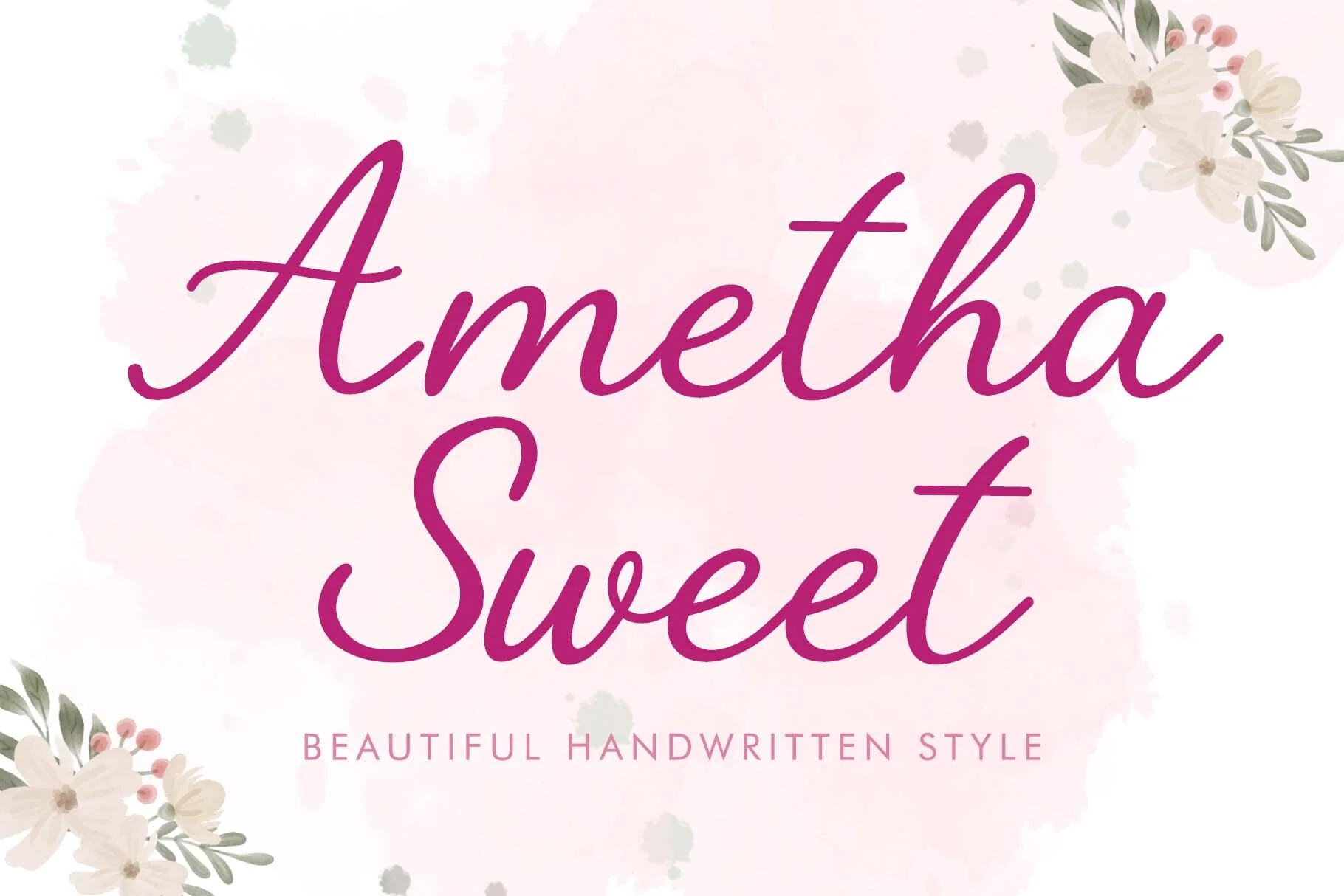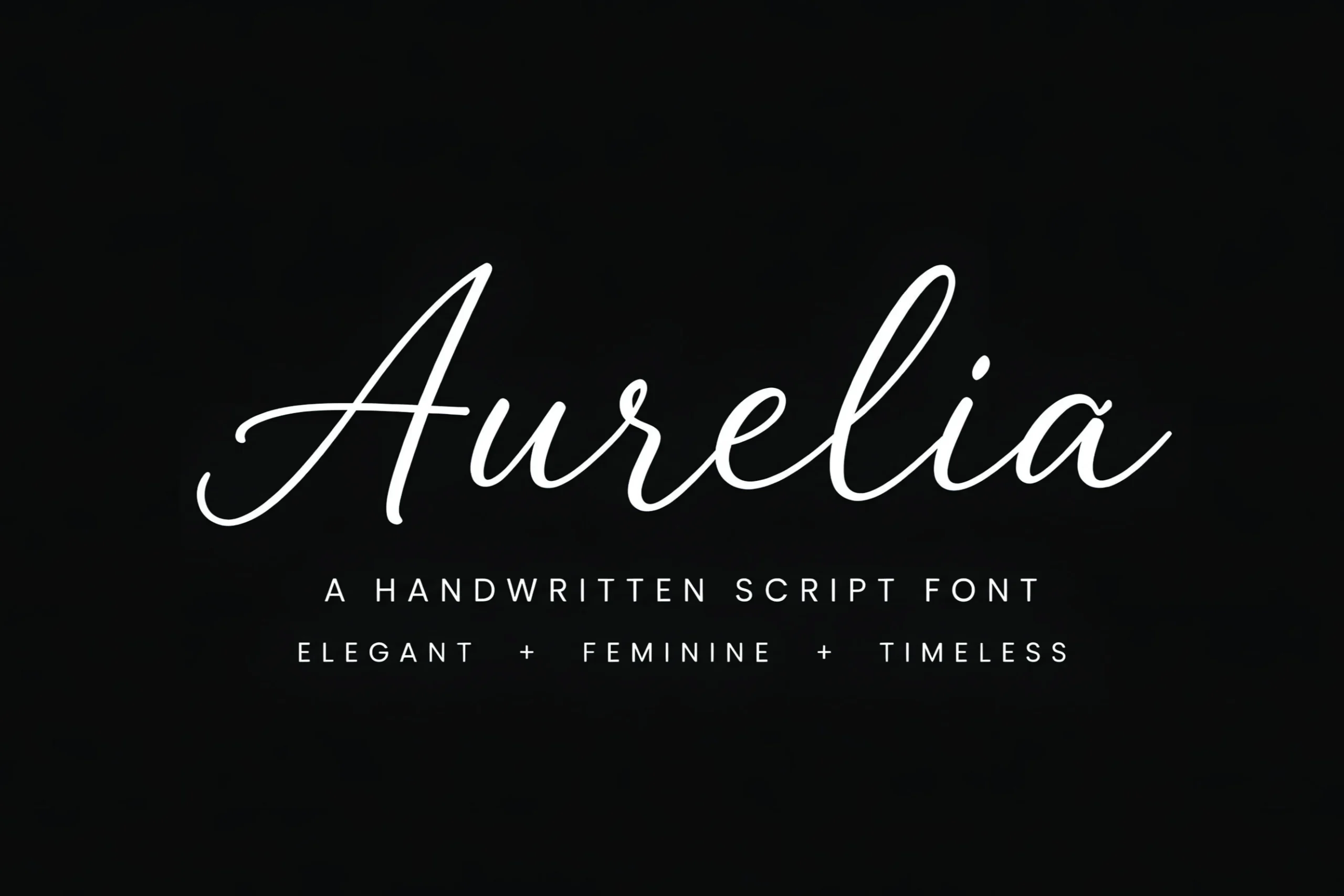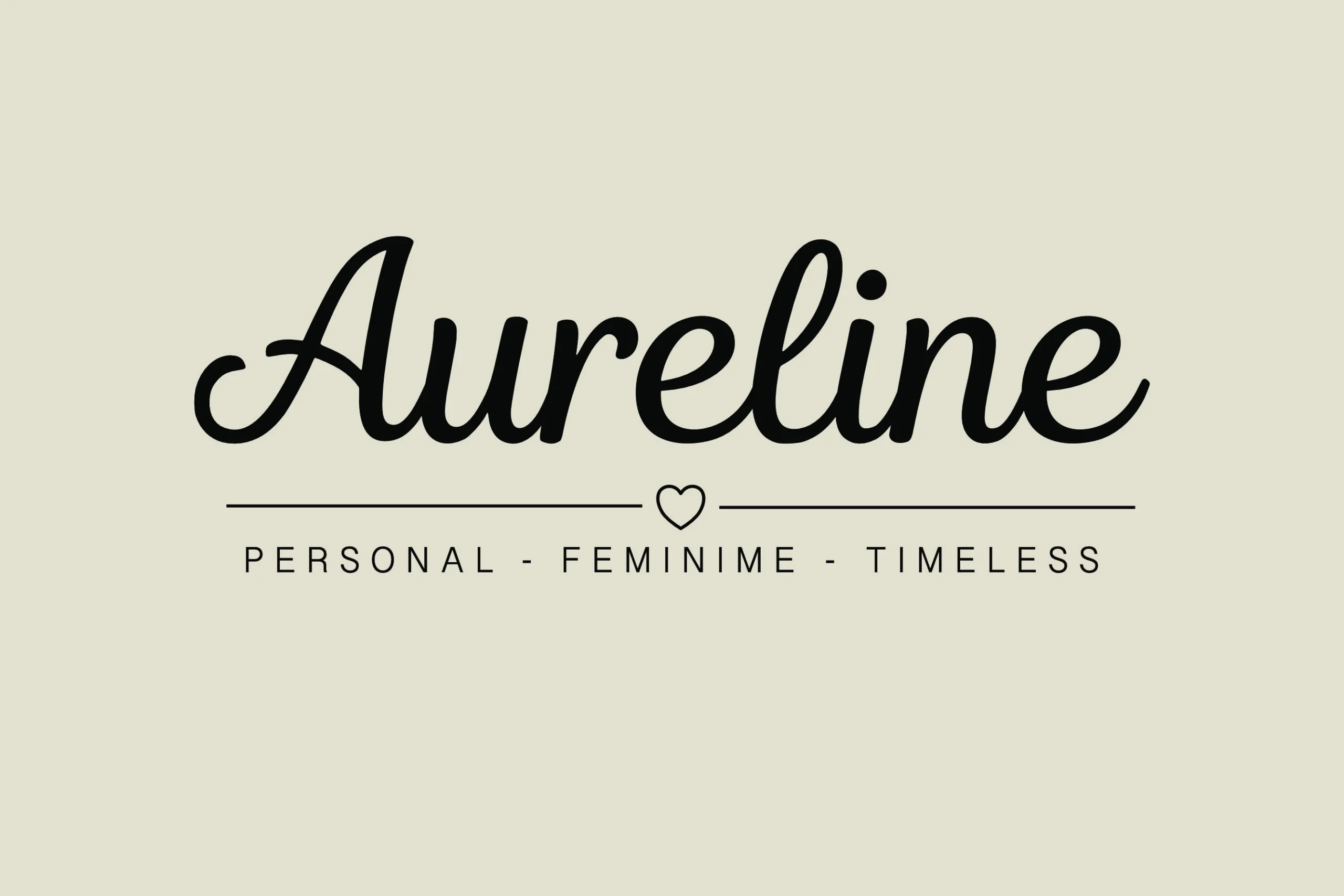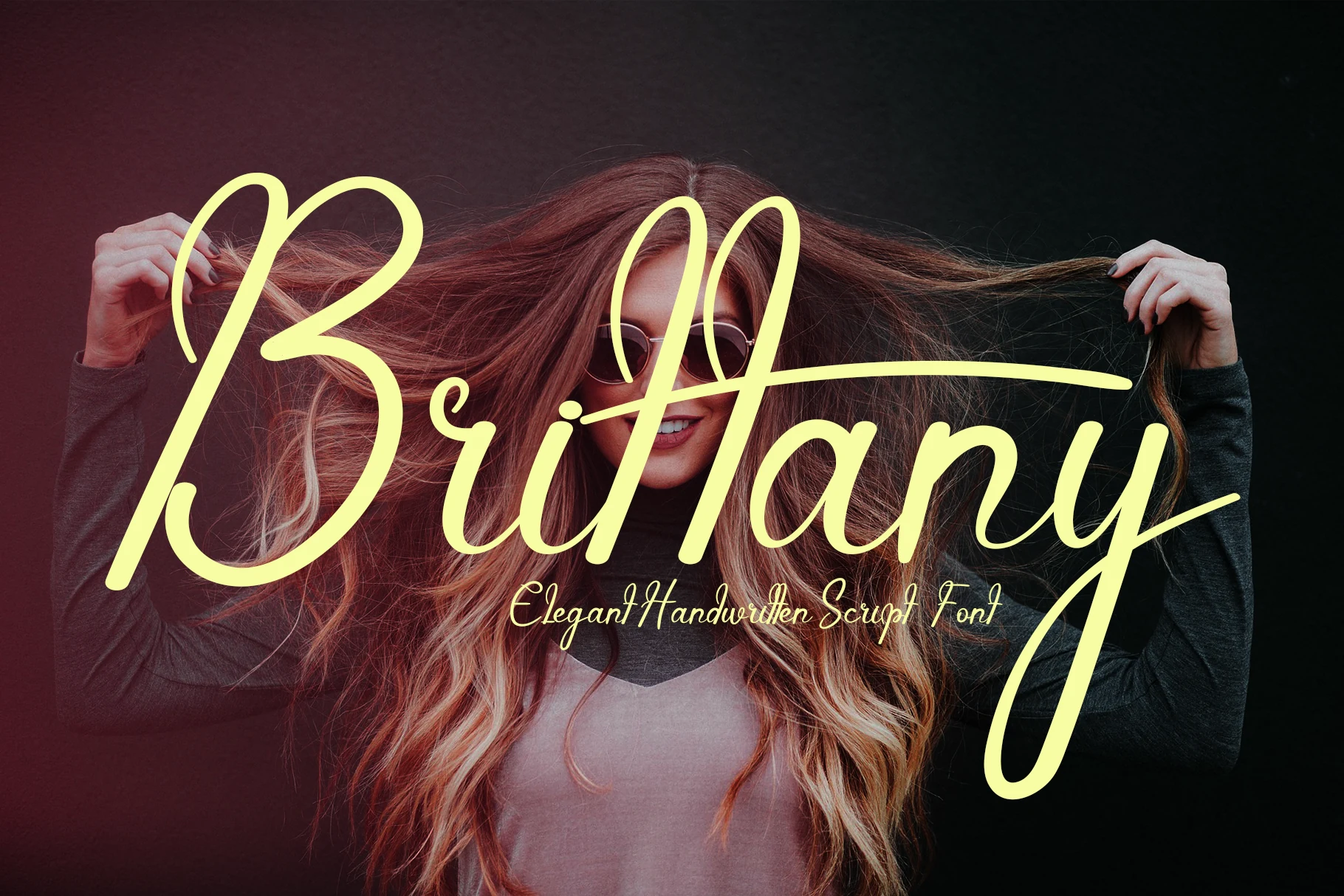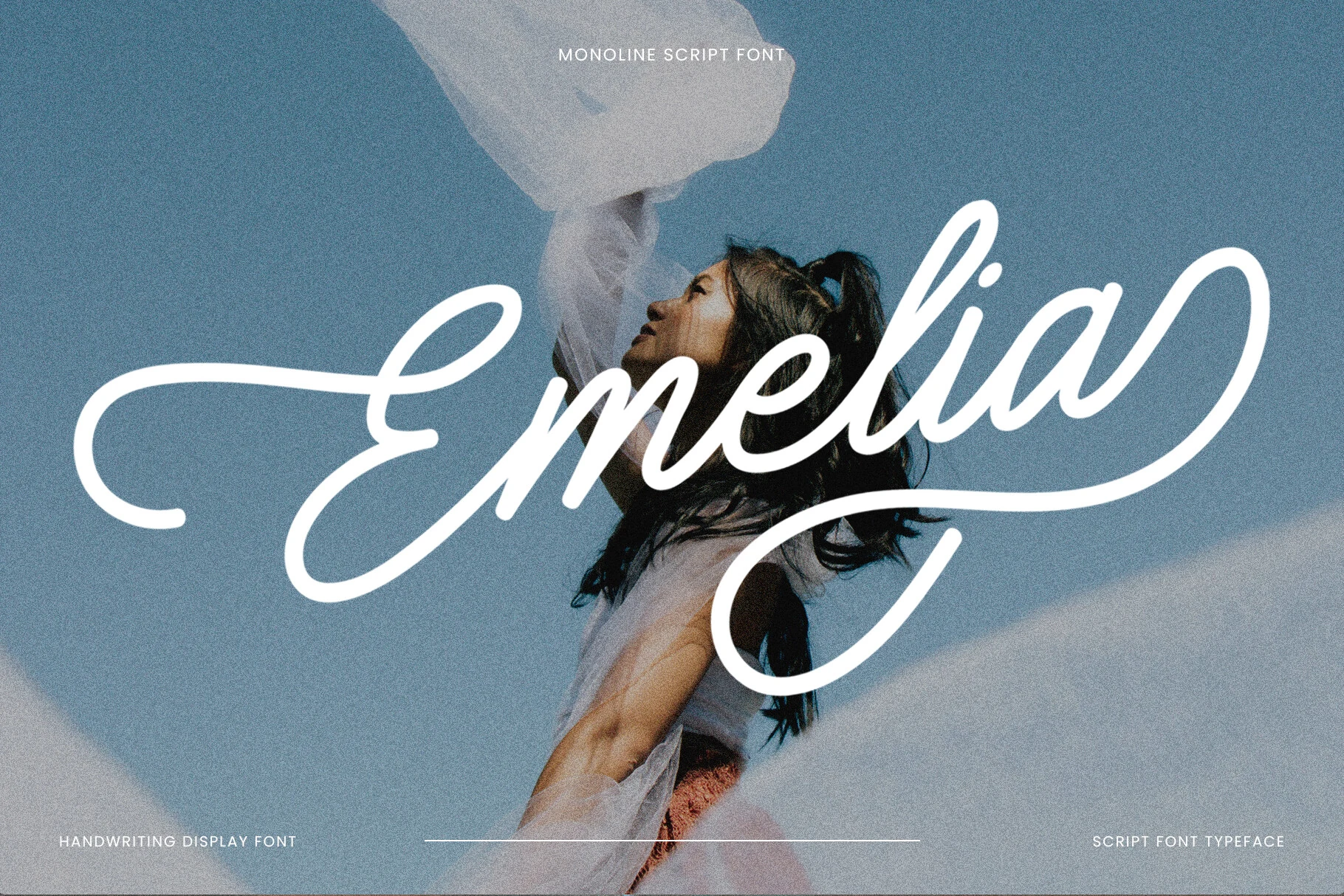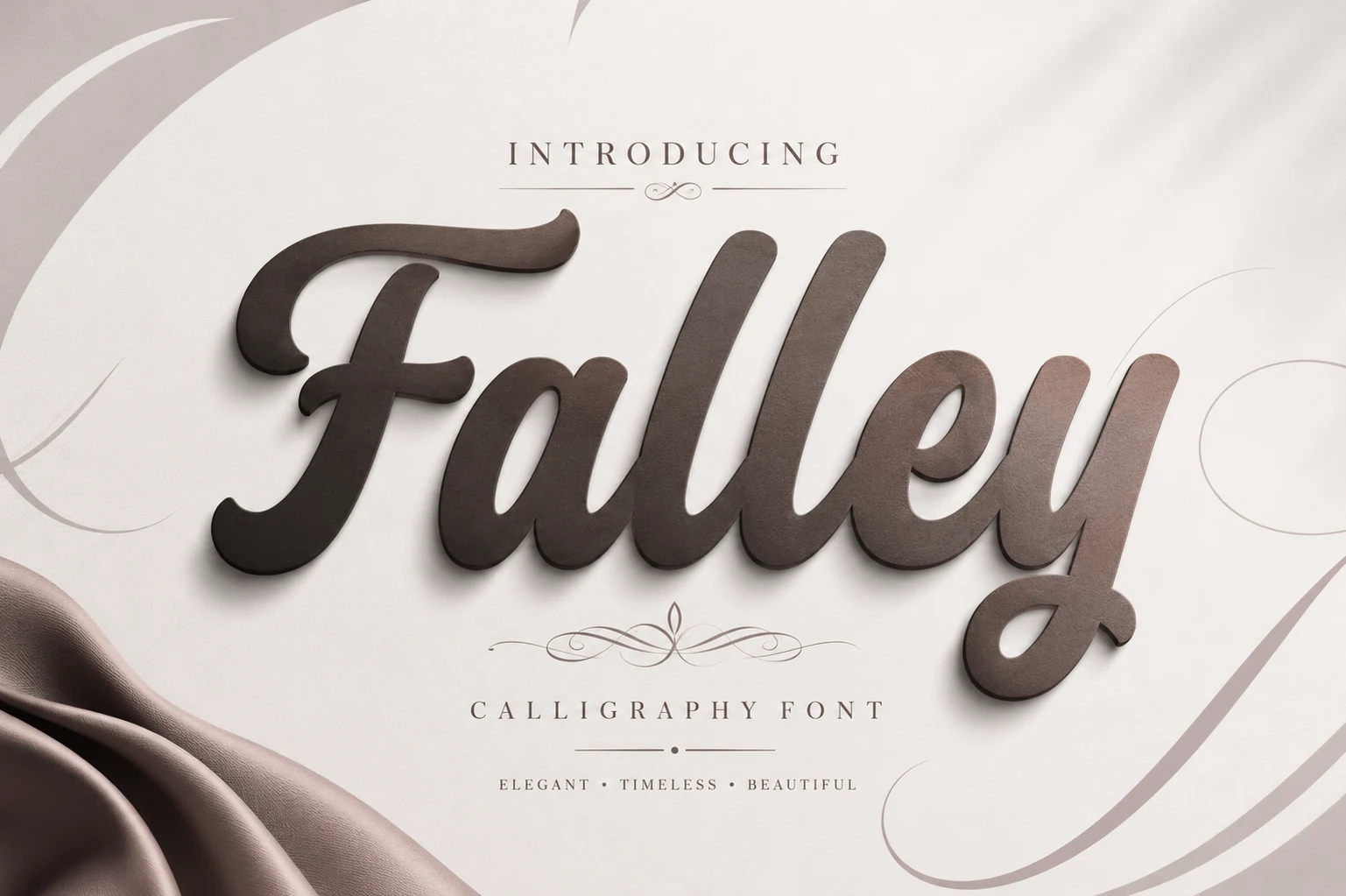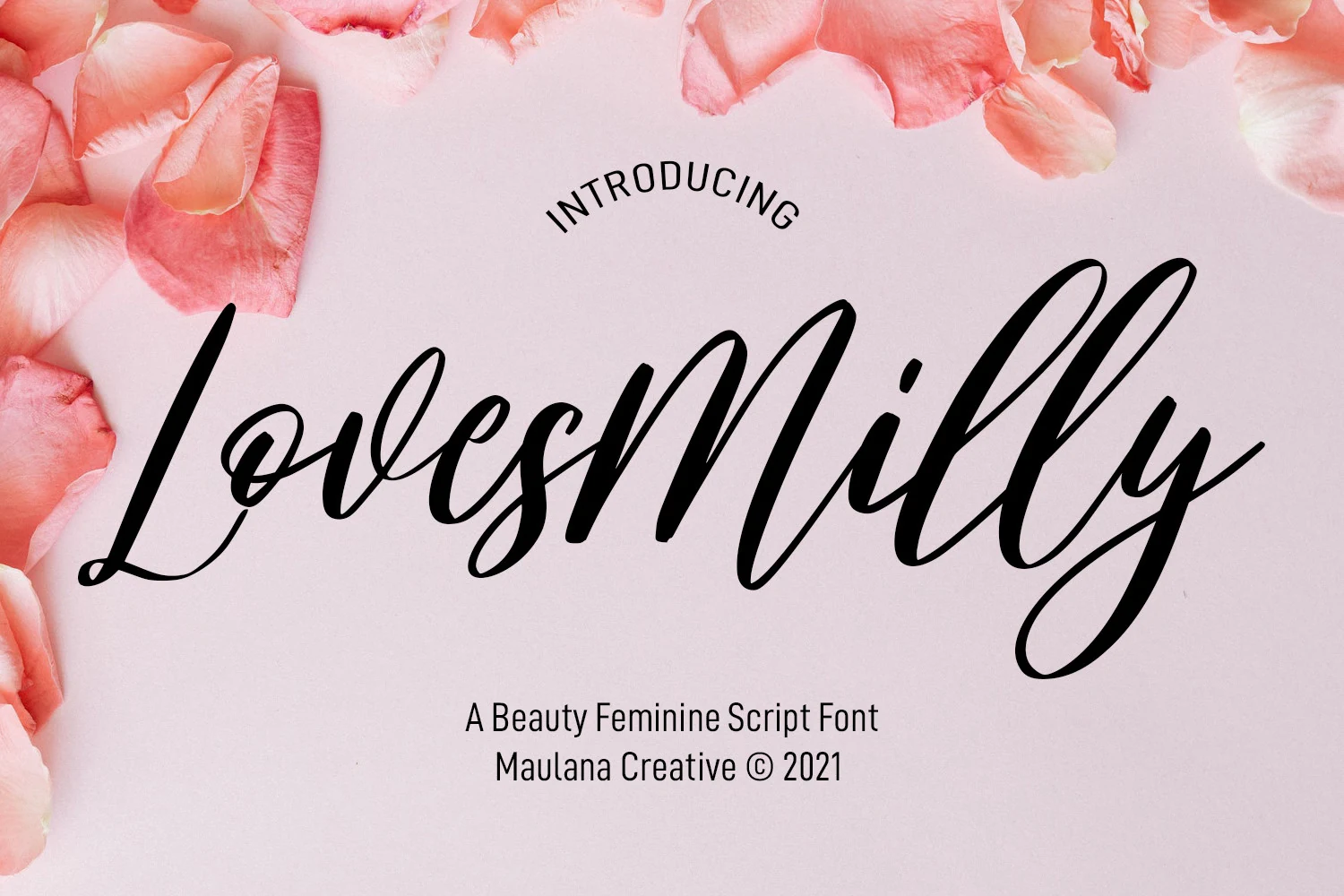
23 Best Feminine Script Fonts for Elegant Designs in 2026
Feminine script fonts are built for designers who need graceful lettering without losing clarity. This collection focuses on elegant scripts for logos, beauty branding, wedding invitations, packaging, editorial headers, and social graphics, with styles ranging from delicate signatures to bold calligraphy.
Elegant Calligraphy Feminine Script Fonts
These feminine script fonts use contrast, flourishes, and formal calligraphy details for luxury logos, invitations, editorial headers, and premium packaging.
Ambriana Font
Ambriana Font bold cream calligraphy script with looping swashes
Ambriana Font has a full-bodied calligraphic rhythm: heavy rounded downstrokes, narrow inner counters, and long looping capitals that pull the wordmark outward. The smooth joins and high contrast make it read as polished rather than casual, with enough ornamental movement to fit Feminine Script Fonts without becoming fragile.
Use it where the title is the main visual element. The alternate characters are useful for shaping entry and exit strokes around a logo, invitation name, or fashion header; keep surrounding text restrained and let Ambriana handle the hierarchy.
Dolcetto Script Font
Dolcetto Script Font white modern calligraphy with tall loops and thin swashes
Dolcetto Script Font has a modern calligraphy structure with tall looping strokes, slim hairline exits, and rounded downstrokes that keep the wordmark soft but controlled. Its open spacing and clean rhythm place it comfortably among Feminine Script Fonts, especially when a design needs elegance without dense ornament.
The thin swashes work best as part of a short title or name rather than a long sentence. Use strong background contrast, leave room around the capital D and final o, and pair it with spaced uppercase text to keep the layout refined.
Authemart Script Font
Authemart Script Font coral calligraphy script with high contrast strokes and long swashes
Authemart Script Font has a formal calligraphy build: high-contrast strokes, narrow upright letters, and long ornamental swashes on the opening A and final t. The smooth curves and vintage-style flourishes give Feminine Script Fonts a more classic, decorative direction rather than a loose signature feel.
Use it where the wordmark can sit wide and uncluttered. The extended underline and looping terminals help frame names or invitation titles, but they need generous side margins; pair it with restrained small caps so the script remains the main hierarchy.
Panda Font
Panda Font red elegant calligraphy script with high-contrast strokes and ornate swashes
Panda Font is an ornate calligraphy script with copper-style contrast, tapered hairlines, and sweeping loops that dominate the word shape. The large capital P, extended underline, and curled final a make it one of the more decorative Feminine Script Fonts for formal display work.
Use it where the lettering can be treated as the main artwork. Its character variations are most useful for shaping dramatic starts, endings, and underlines around a logo or invitation title; avoid tight crops and keep supporting type restrained so the swashes do not compete with other details.
Falley Font
Falley Font dark brown bold calligraphy lettering with rounded strokes and a looped descender
Falley Font has a bold calligraphic build with rounded strokes, soft pressure changes, and a sweeping capital that gives the wordmark a formal entrance. The connected letters are thick enough for readable titles, while the looped descender and curved terminals keep the style decorative without turning overly fragile.
Falley adds a heavier, more ceremonial option to Feminine Script Fonts, especially for wedding marks, boutique logos, and polished lifestyle branding. Use it for short headline words where the dense strokes can anchor the layout, then keep captions widely tracked and lighter in weight so the script does not compete with its own shadow and curves.
Light Signature Feminine Script Fonts
This group focuses on airy handwritten signatures with slim strokes, loose joins, and open spacing for personal branding, wedding names, and refined wordmarks.
Clementine Font
Clementine Font light handwritten script with long sweeping strokes
Clementine Font is a light handwritten script with an elongated entry stroke on the capital C, slim monoline curves, and a low sweeping underline. Its loose joins and slightly grainy edges give it an organic signature feel, placing it neatly within Feminine Script Fonts without making the lettering look overly formal.
The design works best when the word has horizontal space to stretch. Avoid tight containers around the capital and tall t, keep supporting text small and quiet, and use contrast rather than extra ornament so the long strokes stay readable.
Raissa Font
Raissa Font thin brown handwritten script with an oversized looped R and delicate swashes
Raissa Font is a fine handwritten script with an oversized looped R, airy spacing, and slender strokes that move in a loose signature rhythm. The double-s forms add ornamental movement without making the word heavy, giving Feminine Script Fonts a delicate, personal, and slightly luxurious character.
Its thin lines need clean contrast and quiet backgrounds, especially around the long left sweep and small connecting strokes. Use it for short names, marks, or wedding details where the open spacing can stay intact rather than being compressed into a crowded layout.
Aurelia Font
Aurelia Font white elegant handwritten script with thin curves and a sweeping capital A
Aurelia Font is a refined signature script with a wide sweeping entry on the capital A, slim oval ascenders, and smooth connections that keep the word moving in one continuous line. Its thin strokes and controlled spacing give Feminine Script Fonts a clean, premium look rather than a heavily ornamental one.
The letterforms depend on contrast and open space, so they work best in short names, marks, or editorial headers. Keep nearby typography simple and widely tracked; the script already carries the motion, while the supporting text should stabilize the composition.
Flaura Font
Flaura Font black monoline handwritten script with large looping swashes
Flaura Font is a slender monoline script with a wide looping F, loose handwritten joins, and oversized swashes that wrap above and below the word. Its light pressure and open rhythm give Feminine Script Fonts a personal, airy look rather than a dense calligraphy finish.
The long flourishes need generous margins, especially on the right where the terminal stroke becomes part of the composition. Use it for short names or signature-style marks, and keep nearby text compact and quiet so the loops stay intentional instead of crowded.
Brittany Font
Brittany Font pale yellow handwritten script with tall loops and long flowing swashes
Brittany Font uses a light handwritten script with tall looped capitals, long horizontal swashes, and a narrow connected rhythm. The strokes stay smooth and even, so the lettering feels graceful without heavy contrast; it is strongest as a single name, logo wordmark, or short romantic title.
For Feminine Script Fonts, Brittany fits polished branding, wedding stationery, and personal identity marks that need movement more than ornament. Give the opening capital and extended crossbar room to travel, then balance it with small restrained copy beneath so the script remains the clear headline.
Melastory Script Font
Melastory Script Font black signature script lettering with tall strokes and compact connected letters
Melastory Script Font has the quick, fashion-sketch rhythm of a signature: tall vertical strokes, narrow connected lowercase, and a sharp ending tail that gives the wordmark forward motion. The line is slim but not fragile, with enough contrast in the bends to keep the lettering visible on clean branding layouts.
For Feminine Script Fonts, Melastory leans stylish and carefree rather than ornate. Use it where a name or short phrase needs to feel personal without becoming overly decorative; loose margins around the tall ascenders and a restrained sans subtitle will keep the signature from crowding the rest of the design.
Romantic & Flowing Feminine Script Fonts
These scripts balance graceful loops, soft rhythm, and decorative swashes for romantic titles, beauty branding, stationery, and polished lifestyle layouts.
Amellia Font
Amellia Font elegant black handwritten script with smooth loops and high contrast strokes
Amellia Font has a clean handwritten flow with a dramatic capital A, rounded looped ascenders, and controlled thick-to-thin contrast. Its smooth connections keep the word shape polished, while the long exit stroke gives Feminine Script Fonts a graceful signature finish without adding heavy decoration.
The balanced letterforms make it easier to build romantic titles that still feel readable. Use the graceful ligatures for names, logo marks, or invitation headers, then keep tracking loose in nearby uppercase text so the script remains the visual anchor.
Orchidia Font
Orchidia Font white handwritten script with a large looping capital O and smooth rounded strokes
Orchidia Font is a smooth handwritten script with a large double-loop capital O, tall rounded ascenders, and soft monoline pressure that stays readable across the word. Its upright rhythm and clean joins give Feminine Script Fonts a gentle romantic tone without making the letters overly ornate.
The wide O and long final stroke need room at both ends, so it works strongest as a short logo, product label, or wedding title. Keep supporting typography narrow or lightly tracked, and use high contrast to protect the slim internal gaps.
Lovesmilly Feminine Font
Lovesmilly Feminine Font black flowing script with tall loops and high contrast strokes
Lovesmilly Feminine Font leans into a tall, expressive script: extended vertical strokes, tight connecting joins, and large looped descenders give the wordmark a romantic sweep. The contrast between slim hairlines and heavier curves gives Feminine Script Fonts a sharp, fashion-led presence rather than a casual handwritten softness.
Keep it in short names, labels, or hero titles where the long L and final y can extend cleanly. The letterforms need generous horizontal space and strong background contrast; crowded layouts will flatten the delicate curves and make the middle letters harder to read.
Agatha Font
Agatha Font orange delicate script lettering with long swashes and thin loops
Agatha Font is a delicate script with thin connected letters, tall looped strokes, and oversized swashes that stretch far beyond the word. Its romantic character comes from the contrast between compact lowercase forms and airy flourishes, so it works best as a short name, invitation heading, or decorative logo mark.
Within Feminine Script Fonts, Agatha is ornamental but still light, not bold or casual. Keep the main word isolated with generous margins, especially above and below the long loops; a small serif or widely tracked sans caption can sit beneath it without fighting the thin stroke rhythm.
Heroic Trouble Script Font
Heroic Trouble Script Font pink handwritten script lettering with flowing loops and brush-like strokes
Heroic Trouble Script Font has a loose handwritten flow with tall looped ascenders, quick angled joins, and thick brush-like turns that keep the words moving across the line. The capitals are decorative without becoming overly formal, so the font reads best in short names, titles, and expressive phrases.
Within Feminine Script Fonts, Heroic Trouble feels more lively and editorial than soft or minimal. Its alternates and ligatures can help vary repeated joins in wedding cards, fashion layouts, and magazine-style headings; keep the surrounding typography narrow and quiet so the sweeping strokes stay in control of the hierarchy.
Emelia Font
Emelia Font white monoline script lettering with smooth loops and flowing swashes
Emelia Font uses a clean monoline script with long entry and exit swashes, rounded loops, and a steady handwritten rhythm. The lettering feels broad and confident rather than fragile, so it works best as a display name, logo wordmark, or short phrase where the sweeping capitals can shape the composition.
For Feminine Script Fonts, Emelia sits on the polished lifestyle side: soft enough for wedding stationery and personal branding, but controlled enough for packaging or photography logos. Keep spacing loose around the first and last letters, and pair it with a small, widely tracked sans caption so the script keeps the title hierarchy; OTF and TTF files with multilingual support help maintain that style across broader text sets.
Bold & Rounded Feminine Script Fonts
These feminine script fonts use fuller strokes, rounded curves, and stronger display weight for packaging, social graphics, labels, and readable brand titles.
Vionettay Font
Vionettay Font bold black script with thick curves and a sweeping descender
Vionettay Font uses a bold handwritten structure with thick slanted strokes, rounded joins, and a large looping capital V that gives the wordmark immediate display weight. The contrast is smooth rather than sharp, so it fits Feminine Script Fonts with a stronger, more editorial tone.
Its compact connections create a dense rhythm, which works well for logos and short brand names but needs generous side margins around the first and last letters. Pair it with widely spaced small caps or a quiet serif to keep the title hierarchy clean.
Aureline Font
Aureline Font bold monoline script with smooth curves and rounded loops
Aureline Font has a smooth monoline script build with rounded bowls, a curled entry stroke on the capital A, and a steady connected baseline. The weight is fuller than many signature styles, giving Feminine Script Fonts a cleaner, more readable option for polished brand names and personal marks.
Its balanced posture makes short words feel stable rather than overly delicate. Keep letter spacing natural inside the script, add contrast with widely spaced supporting caps, and leave room at both ends so the opening curl and final stroke do not feel clipped.
Ametha Sweet Font
Ametha Sweet Font magenta handwritten script with rounded curves and smooth connected strokes
Ametha Sweet Font uses a rounded handwritten script style with smooth connected strokes, a tall sweeping A, and soft looped forms that keep the lettering approachable. The weight is clean and even, giving Feminine Script Fonts a brighter, more casual direction than formal calligraphy.
Its wide curves and extended strokes work best in short titles where the letters can stretch without crowding. Use clear contrast and modest supporting type; the script already carries enough movement, so extra flourishes would make the layout feel busy.
Belita Font
Belita Font thick gray script with rounded strokes and a looping capital B
Belita Font has a thick, rounded script structure with a bold looping B, soft terminals, and compact joins that make the word feel stable rather than fragile. Its snappy rhythm gives Feminine Script Fonts a more confident, brand-ready tone while keeping the curves smooth and approachable.
The heavier weight gives it better visibility for packaging, labels, and social posts, especially when used as a short title. Keep supporting text lighter and more spaced out, since Belita already carries strong visual density through its rounded strokes and close connections.
Andelina Font
Andelina Font yellow casual brush handwriting with rounded upright letters
Andelina Font reads as casual brush handwriting rather than a delicate looped script. Its upright forms, rounded bowls, blunt terminals, and slightly irregular stroke edges give the lettering a simple, friendly shape that stays readable even when used across a wider headline.
In a Feminine Script Fonts roundup, Andelina works best for layouts that need softness without ornate swashes: invitations, small brand marks, and social graphics with a handmade tone. Let the thick letter shapes carry the title, then use tighter secondary text beneath it so the loose spacing and tall vertical rhythm do not feel crowded.
Galery Handwriting Font
Galery Handwriting Font bold rounded display lettering with pink brush script overlay
Galery Handwriting Font is built as a contrast pair: a heavy rounded display face with bulbous curves and a brush-penned script that cuts across it with sharper, slanted movement. The main letters carry the headline weight, while the secondary script adds a personal accent without taking over the composition.
In a roundup of Feminine Script Fonts, this one works less like a delicate standalone script and more like a ready-made title system. Use the chunky style for the primary word, then let the handwritten layer handle emphasis; the contrast is strongest when the script overlaps with clear color separation and the layout keeps surrounding text compact.
Conclusion
Choose light signature scripts for personal marks, calligraphy scripts for luxury or wedding layouts, romantic flowing styles for soft editorial work, and bolder rounded scripts when readability and display impact matter most.